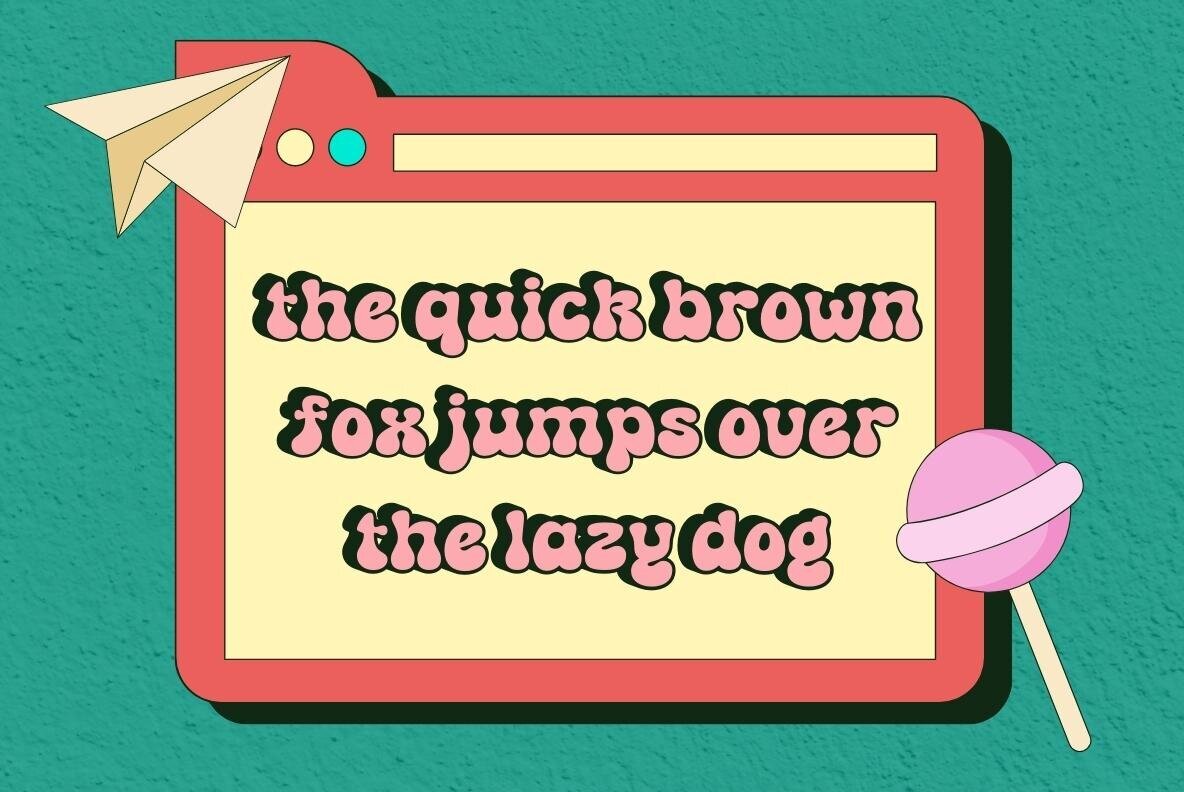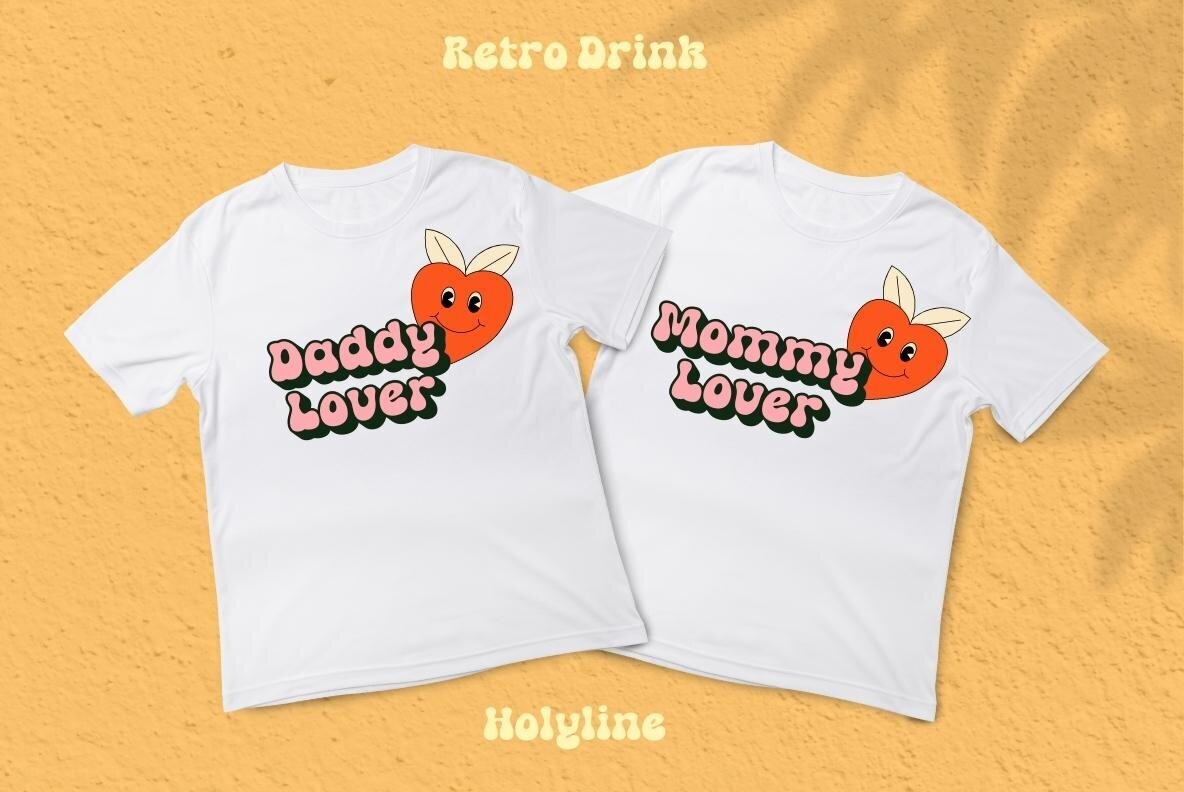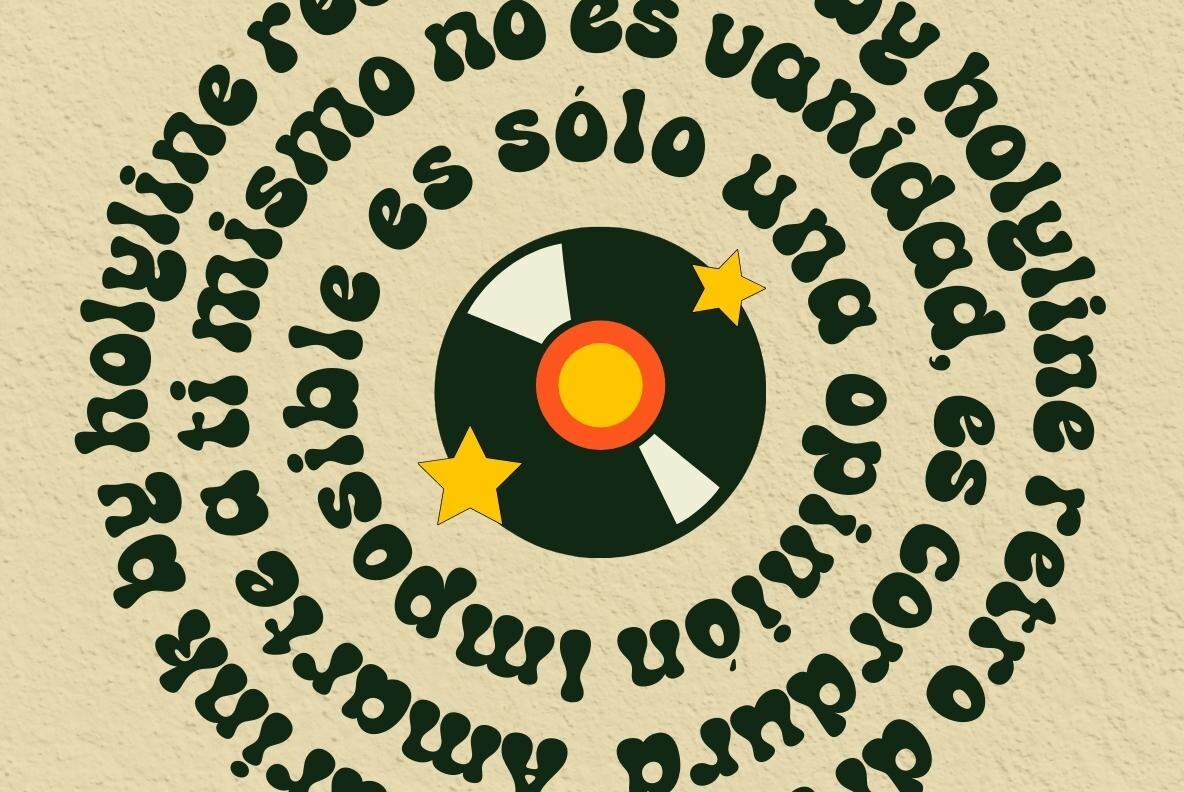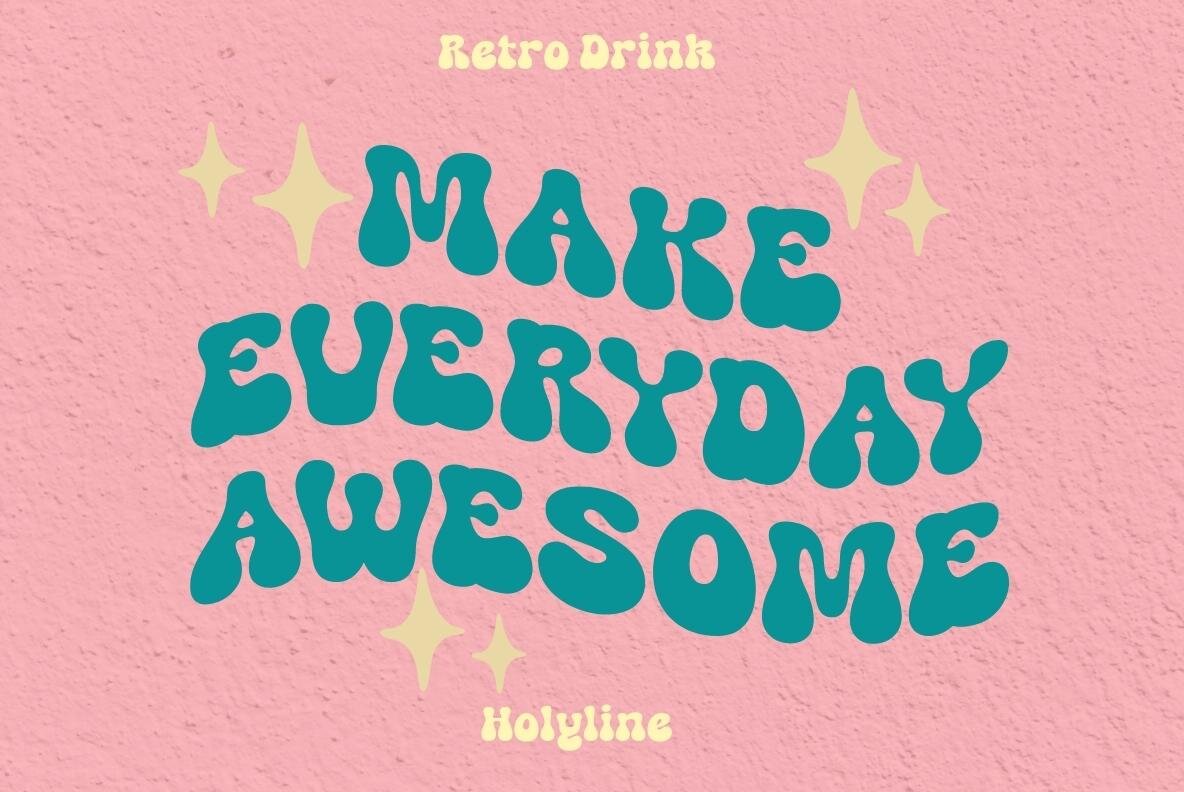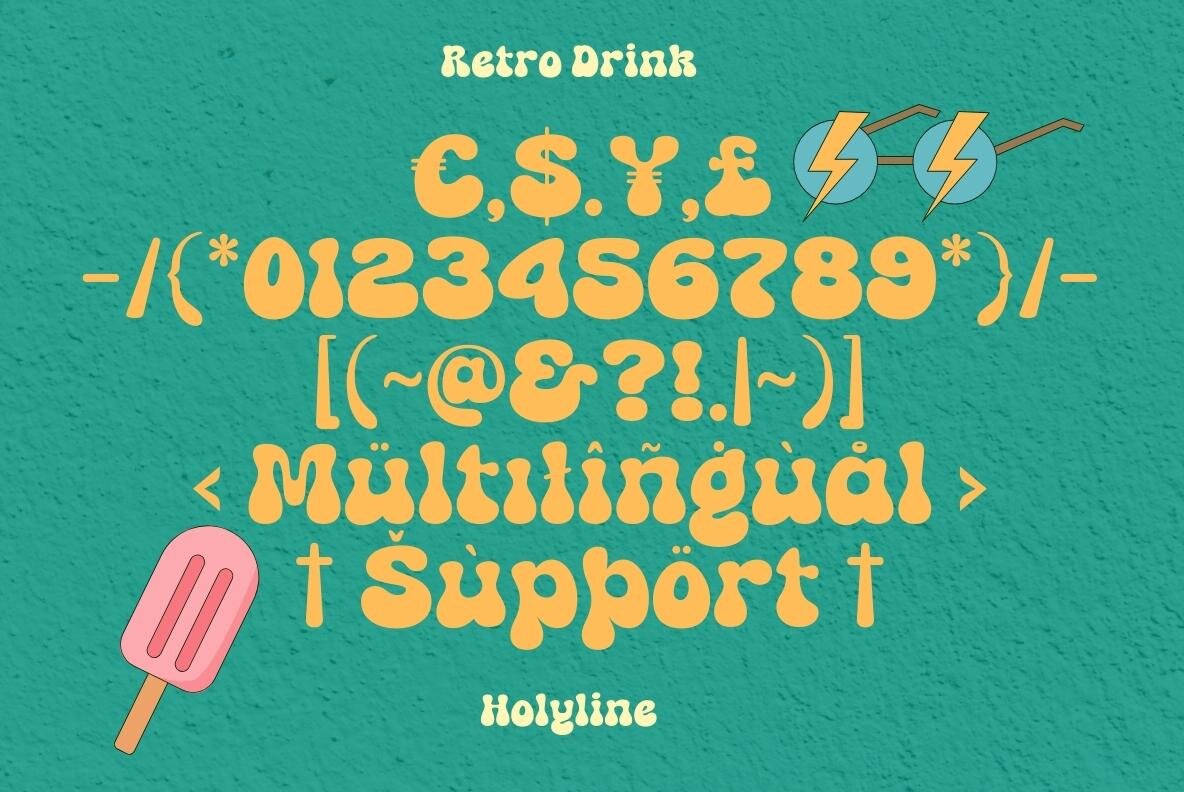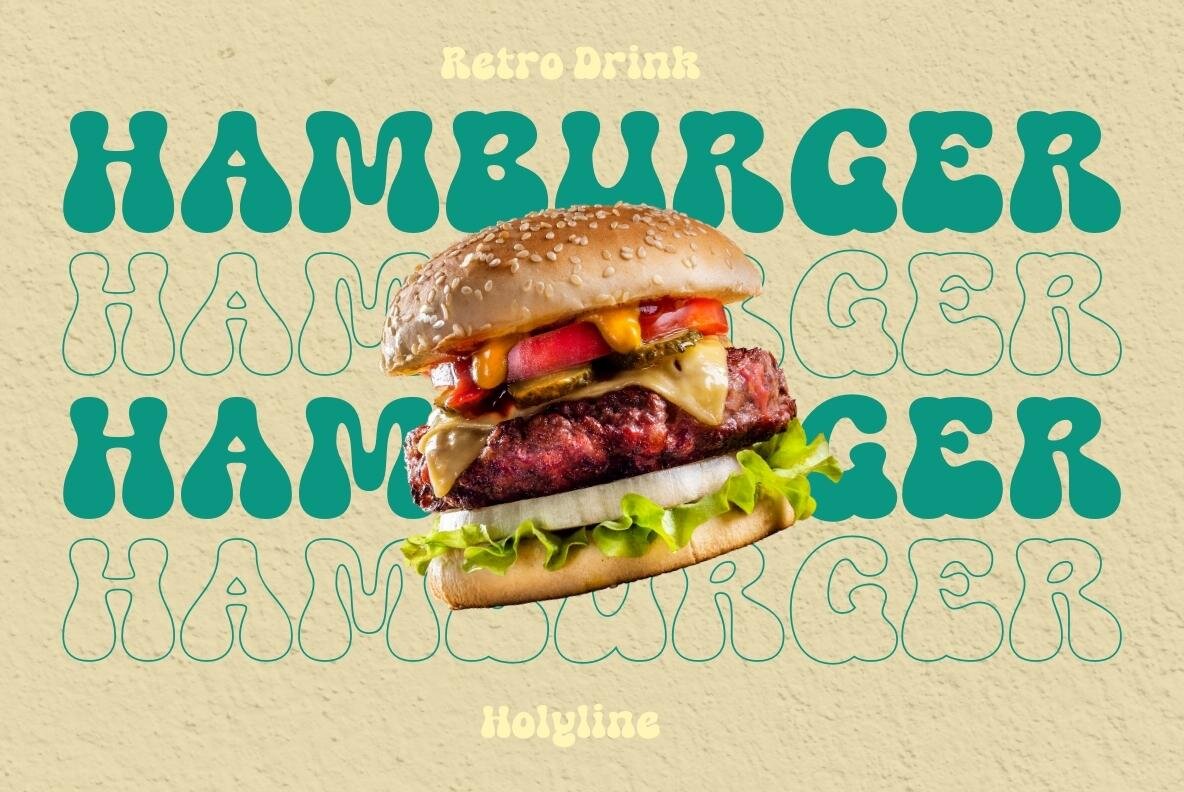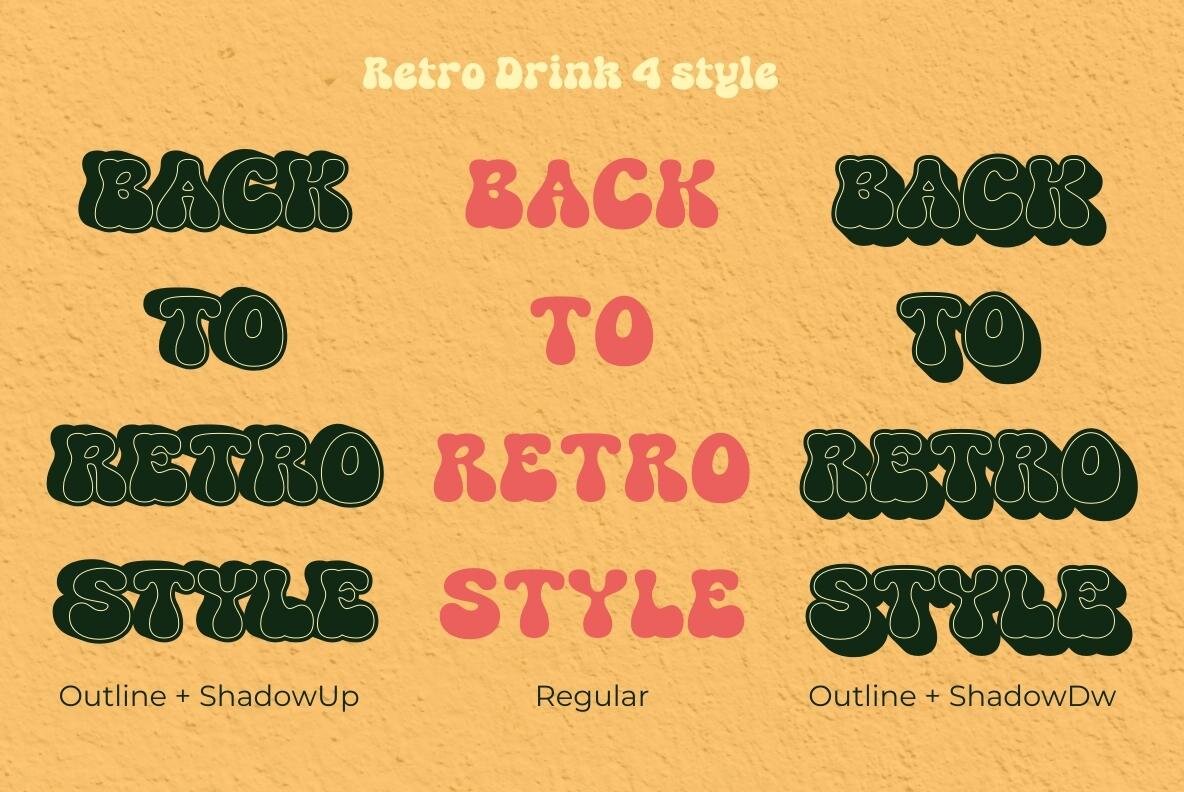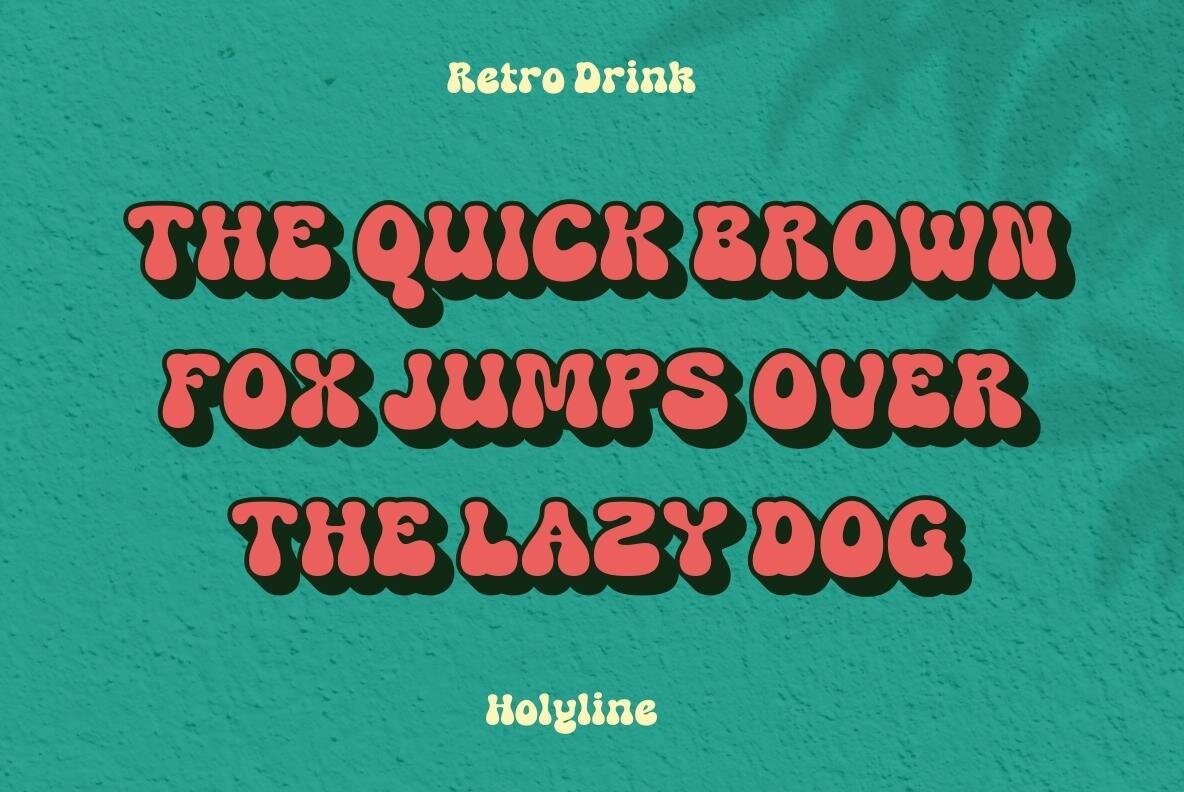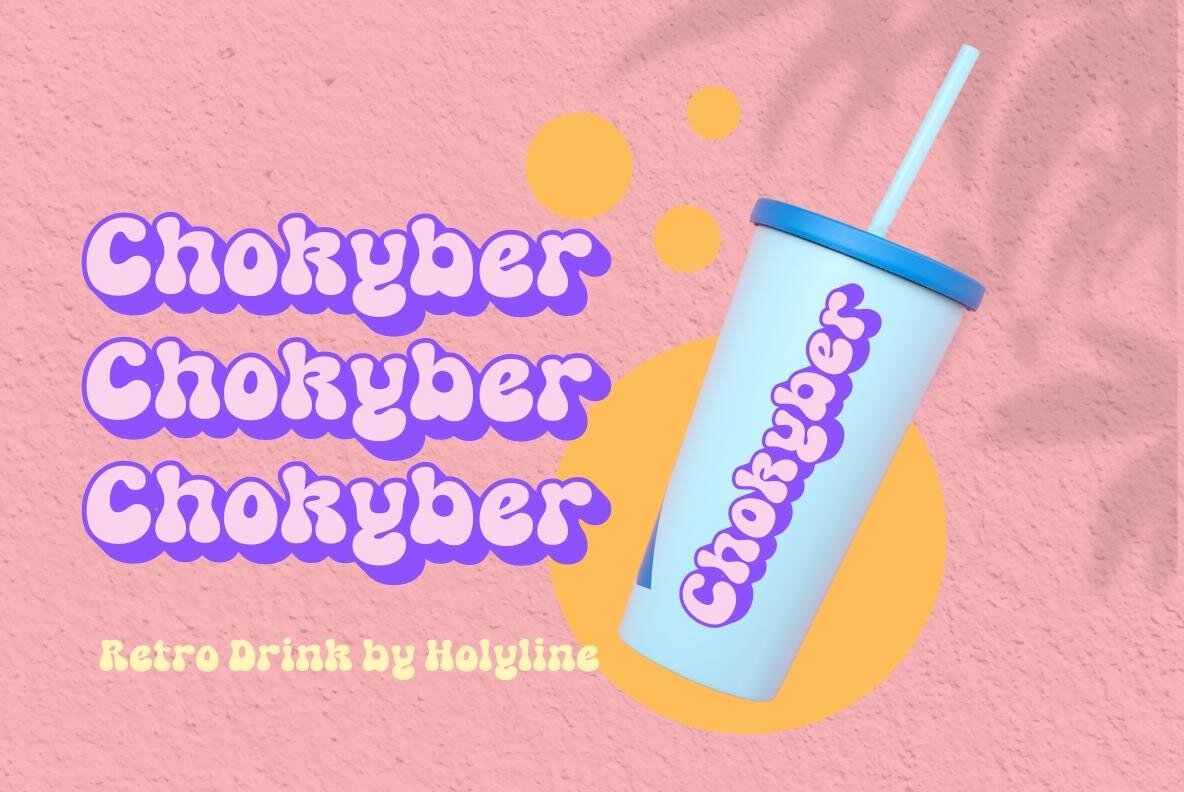
Retro Drink Font
The Retro Drink Typeface by Holyline Design captures the spirit of the 1980s with its modern, groovy, and playful characters. It features a bold design, perfect for making a statement in various creative projects. Retro Drink is incredibly easy to use and can be combined with trending design styles. It is perfect for headlines, subheadlines, custom logos, packaging, quotes, labels, merchandise, and any design project that requires a retro vibe. This typeface is an excellent choice if you want to inject something new into your project. Experiment with the four font styles to find the perfect mix for your design. Enjoy creating!Retro Drink Typeface: A Groovy 80s-Inspired Font